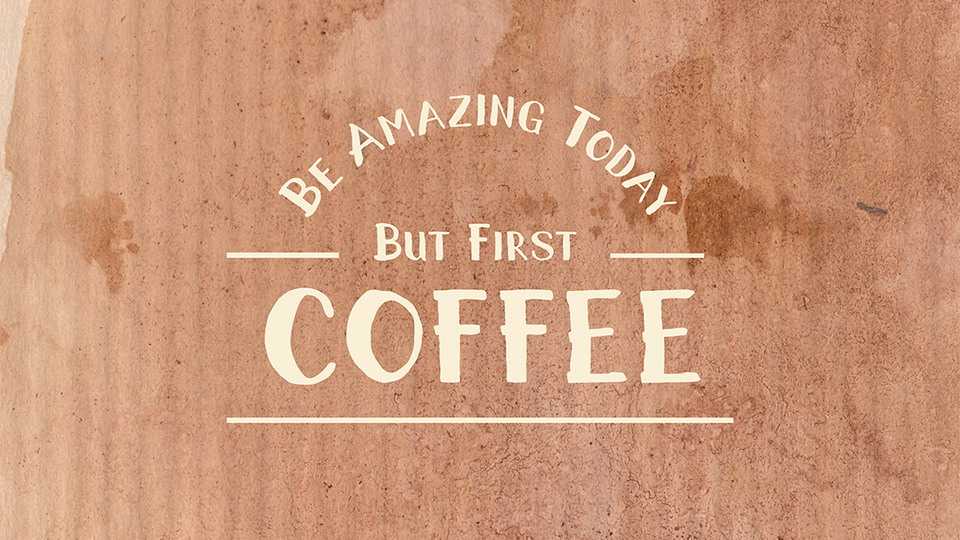
Coffee Morning Font › Fontesk – Download Grátis
Download Coffee Morning font, a hand painted brush typeface inspiring by bold taste of coffee and rough of its stain on the table. Coffee Morning font can be use for any kind of casual, light & playful visualization.
Designer: Rendy Me55enjah